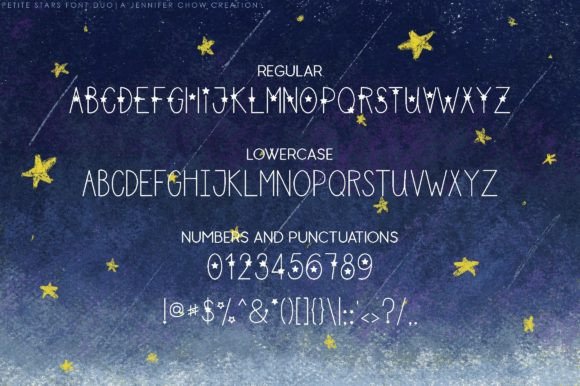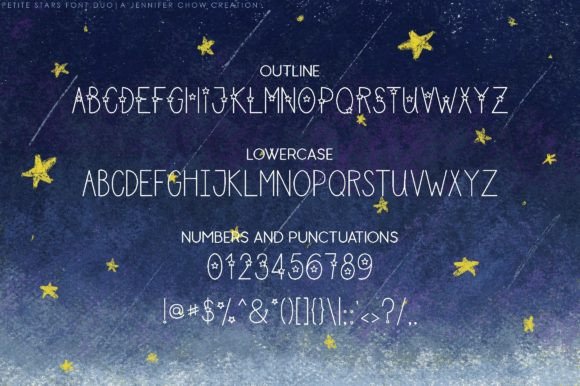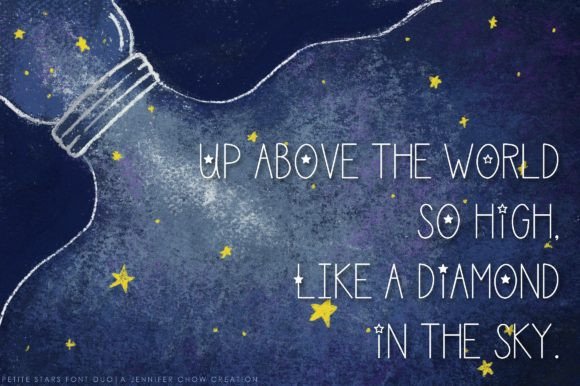
Introduction to Petite Stars Font
Petite Stars is a cute and adorable display font.
With its playful style, this font is great for childrenโs books, baby shower invitations, childrenโs birthday cards, party invitations, and any crafty project that needs a friendly touch .